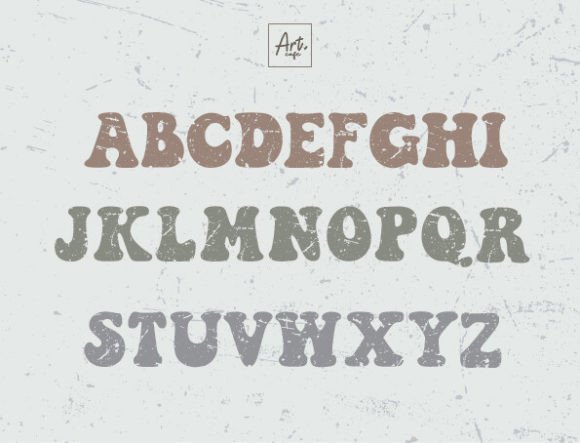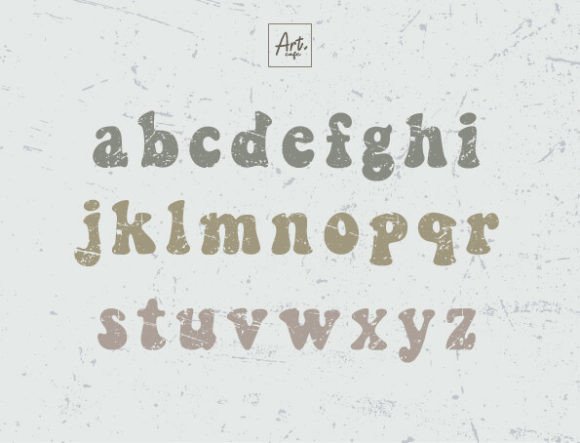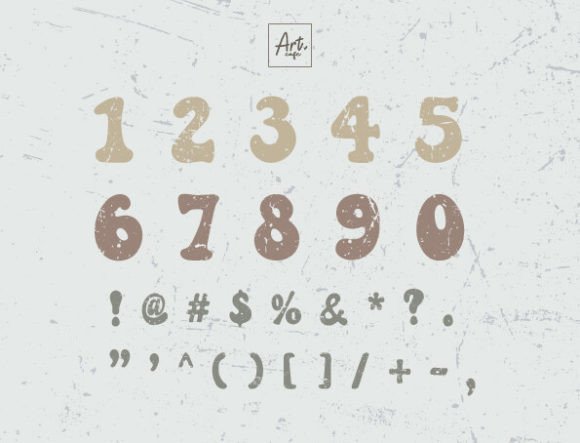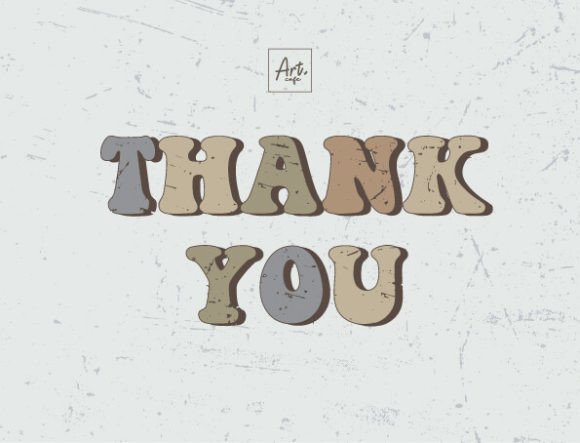
Grunge Groovy Font: Reviving the Retro Charm
Are you a designer or crafter looking to add a touch of nostalgia to your creations? Look no further than the Grunge Groovy Font. This distressed font is the perfect blend of vintage charm and retro panache, guaranteed to infuse an edgy, groovy vibe into any design. In this article, we’ll dive into the world of Grunge Groovy, exploring its unique features, and how it can elevate your designs to the next level.
The Retro Revival
The Grunge Groovy Font is a masterful reinvention of the aesthetic of the throwback era. With its distressed texture and retro flair, this font is the ultimate choice for anyone seeking an artistic fusion of retro and cool. Whether you’re designing a logo, creating a social media post, or crafting a flyer, Grunge Groovy is the perfect choice to add a dash of nostalgia to your work.
What Makes Grunge Groovy Unique?
So, what sets Grunge Groovy apart from other fonts? Here are a few key features that make it a standout:
- Distressed Texture: The Grunge Groovy Font boasts a unique distressed texture that gives it a worn, vintage look. This texture adds a level of depth and character to your designs, making them instantly stand out.
- Retro Flair: With its retro-inspired design, Grunge Groovy is the perfect choice for anyone looking to evoke the spirit of the past. From the 60s to the 90s, this font captures the essence of the retro era.
- Edgy and Groovy: Grunge Groovy is all about attitude. Its edgy, groovy vibe is perfect for designers and crafters who want to add a touch of rebellion to their work.
How to Use Grunge Groovy in Your Designs
Using Grunge Groovy in your designs is easy. Here are a few tips to get you started:
- Pair it with Bold Colors: Grunge Groovy looks amazing when paired with bold, bright colors. Try combining it with a bold color scheme to create a statement piece.
- Use it for Headings: The Grunge Groovy Font is perfect for headings and titles. Use it to add a touch of nostalgia to your blog posts, social media posts, or flyers.
- Experiment with Different Styles: Don’t be afraid to experiment with different styles and textures. Grunge Groovy looks amazing when paired with other distressed textures or bold graphics.
Why Designers and Crafters Love Grunge Groovy
So, why do designers and crafters love Grunge Groovy? Here are a few reasons:
- Instant Nostalgia: Grunge Groovy instantly evokes a sense of nostalgia. With its retro flair and distressed texture, it’s the perfect choice for anyone looking to create a throwback design.
- Unique and Eye-Catching: Grunge Groovy is a one-of-a-kind font that is sure to grab attention. Its edgy, groovy vibe makes it perfect for designers and crafters who want to create something truly unique.
- Versatile: Grunge Groovy is a versatile font that can be used in a variety of designs, from logos to social media posts.
| Font Name | Grunge Groovy Font |
| Author | Art cafe |
- Unique distressed texture
- Retro-inspired design
- Edgy and groovy vibe
- Perfect for headings and titles
- Instant nostalgia
- Unique and eye-catching
- Versatile